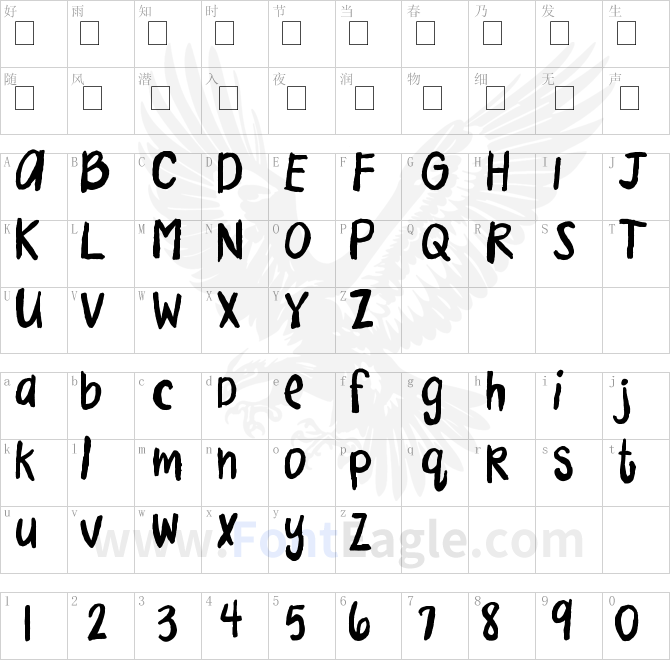
FB-Almost-Paradise is a great font, widely used in graphic design, single-page menu design, poster design and other fields, and is deeply loved by designers.FB-Almost-Paradise download.